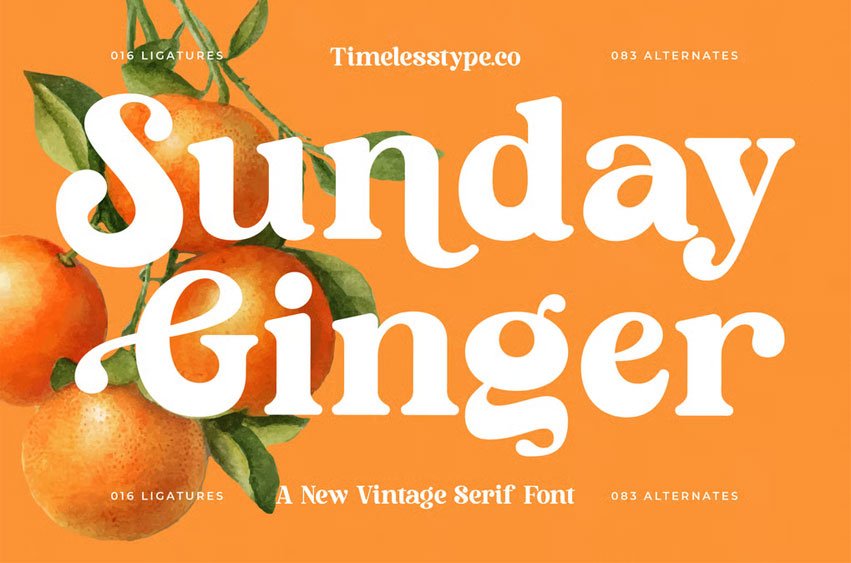
Sunday Ginger Font is a warm and cheerful vintage serif font crafted with soft curves, bold silhouettes, and a friendly handcrafted touch, inspired by sunny weekend markets, citrus packaging, and retro editorial charm.
With 16 expressive ligatures and 83 playful alternates, this typeface brings a fresh, uplifting personality perfect for branding, organic product labels, farmhouse-style packaging, boutique logos, lifestyle magazines, social media graphics, and creative projects that need a blend of nostalgia and modern flair. Its rounded terminals and quirky rhythm make every headline feel inviting, vibrant, and full of character—ideal for designers who want a font that radiates positivity and visual charm.